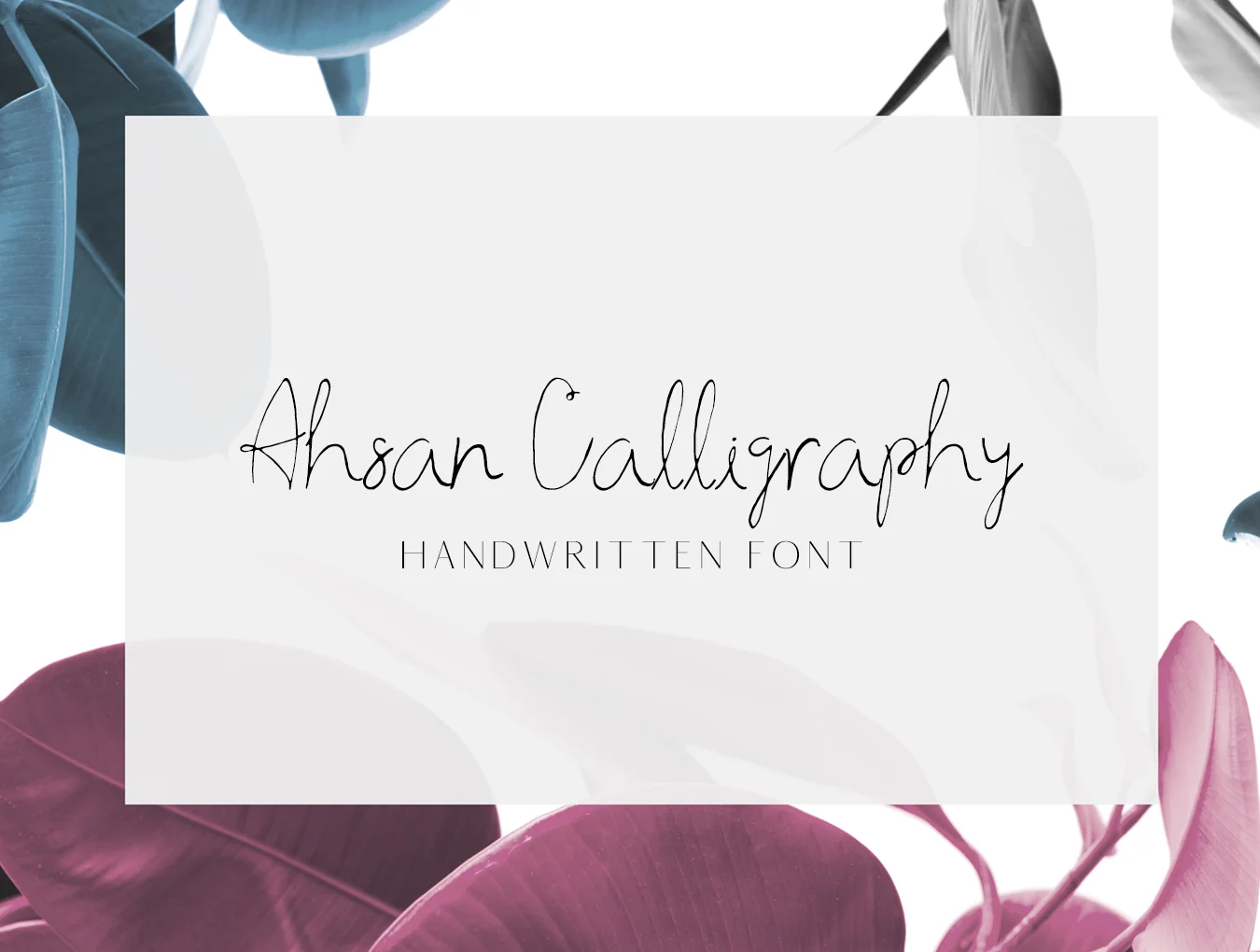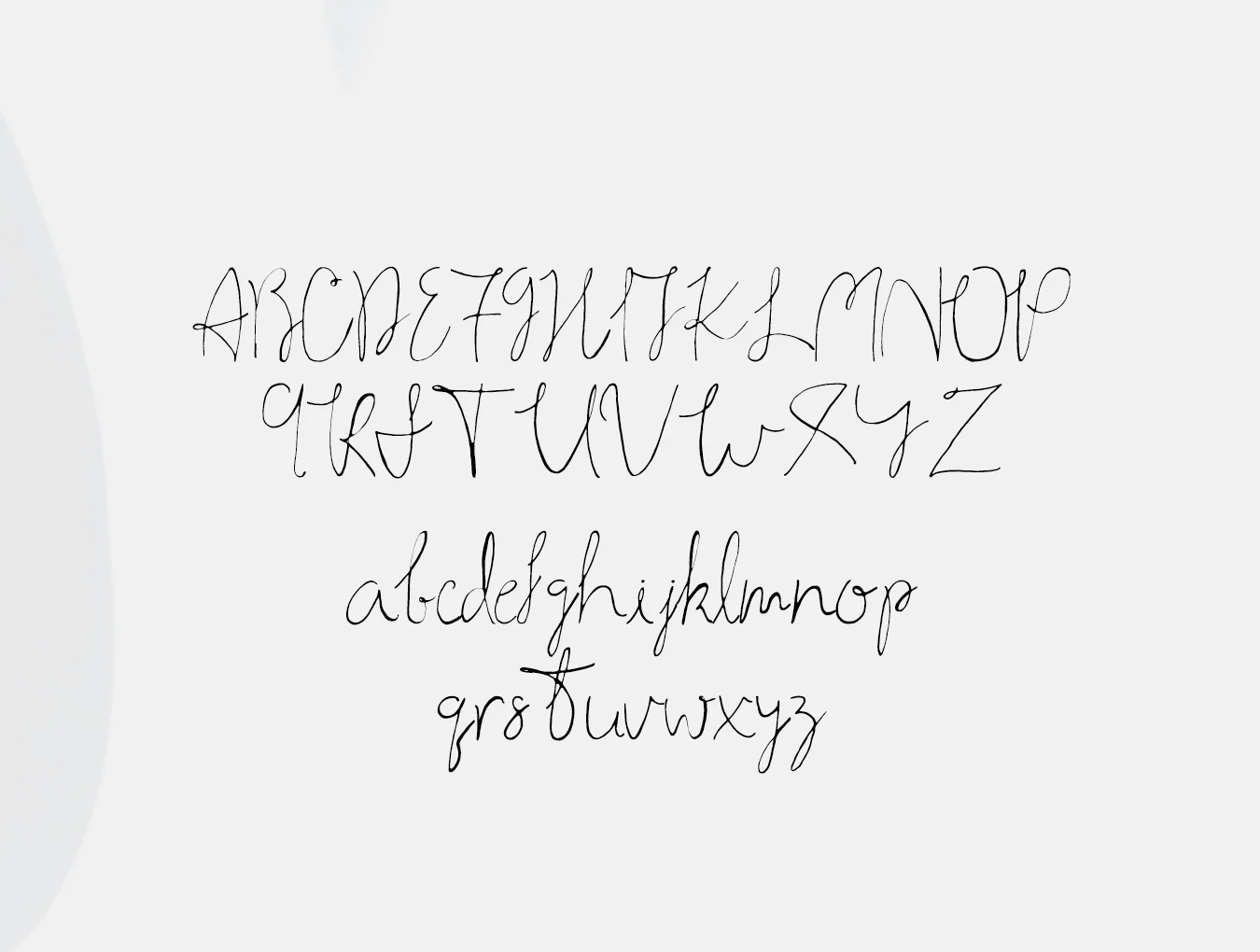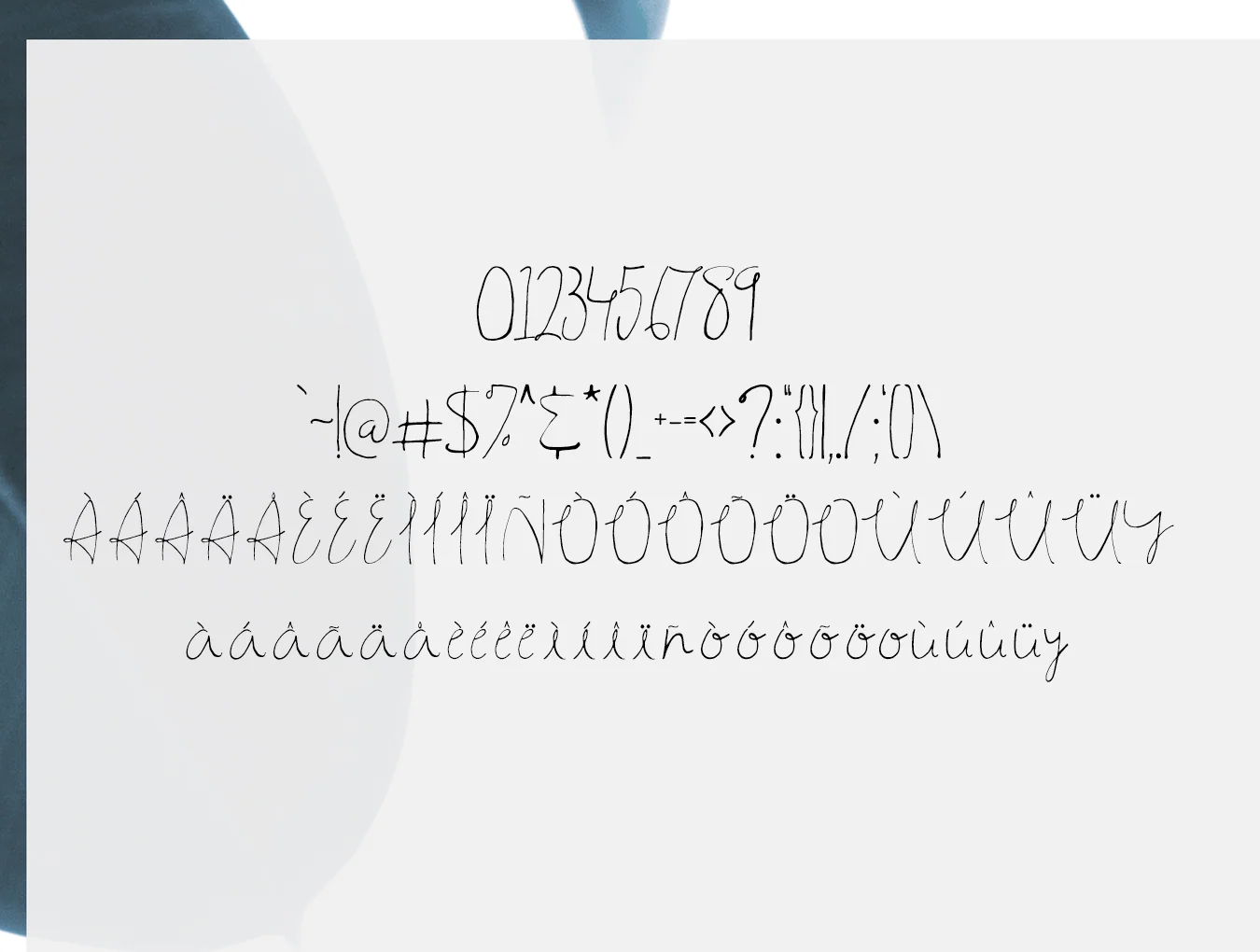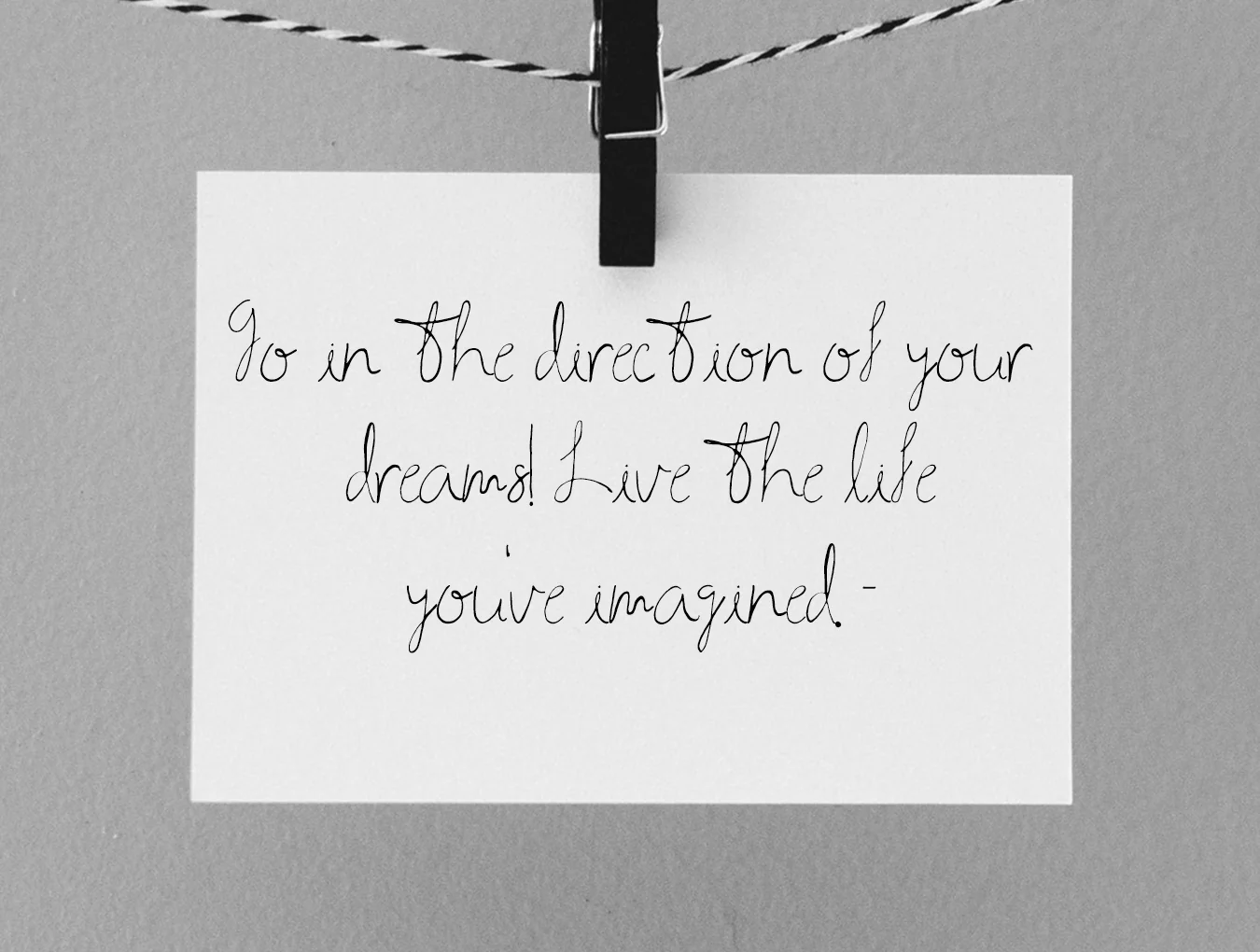
Ahsan Calligraphy Script
Ahsan Handwritten Calligraphy Script Font
Handwritten script typeface
Includes 152 glyph characters
Standard regular weight
Ahsan Calligraphy is a modern script typeface with refined, stylish touches. It offers beautiful uppercase and lowercase characters, numbers, extensive punctuation, and ligatures. Ideal for logos, branding, wedding invitations, cards, apparel, merchandise, packaging, social posts, and more.